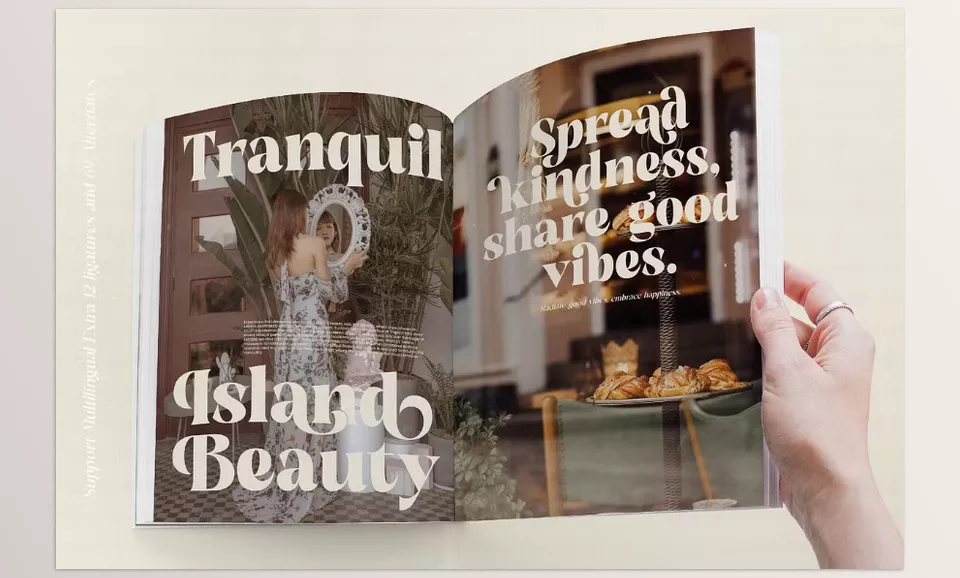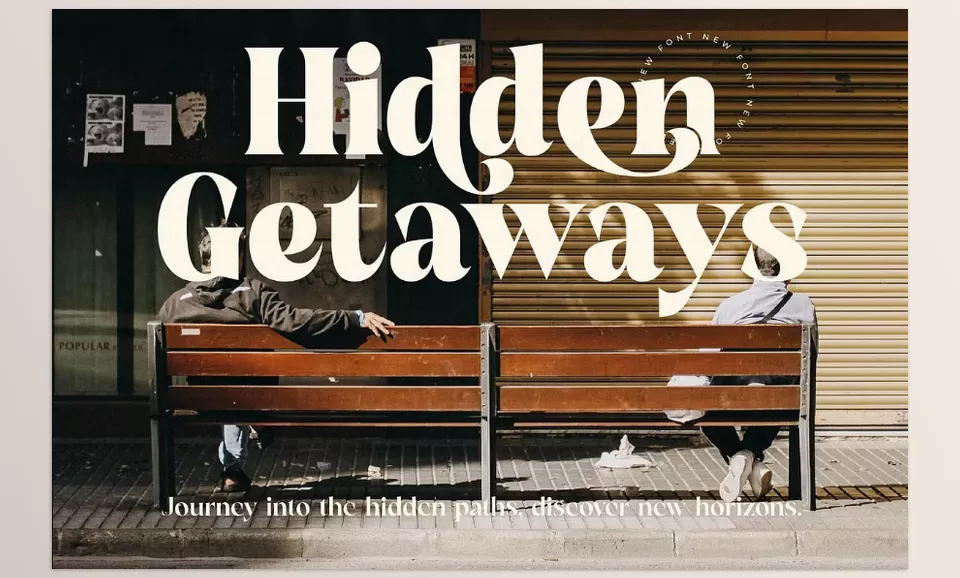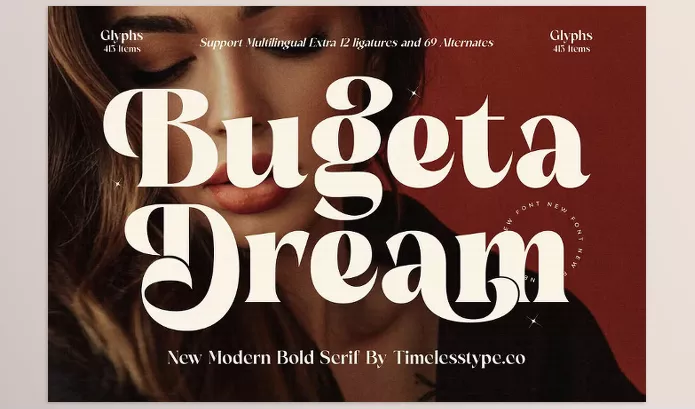
Creative Market – Bugeta Dream New Modern Bold Serif is a modern font specifically tailored for users searching for a bold serif style to complete their projects. Its distinct look makes it useful in many industries, making the nature of the project, elegant and sophisticated for high-end brands and product designs along with visual identities.
Bugeta Dream New Modern Bold Serif Features
• 69 Alternates and 12 Ligatures for better creativity and flexibility
• Versatile designs can be created with Upper and lower-case letters
• Supports multiple languages with accent characters available
• Punctuation and Numerals (OpenType Standard)
• Alternative style for design with stylistic sets
• Perfect for diverse design assignments such as logos, posters, and packaging. Works without effort.
Image 1: Transform your branding with elegant curves and modern sophistication, perfect for any luxury project.
Transform your branding with elegant curves and modern sophistication, perfect for any luxury project.
Image 2: Make a statement with bold elegance—ideal for everything from custom logos to premium packaging.
Make a statement with bold elegance—ideal for everything from custom logos to premium packaging.